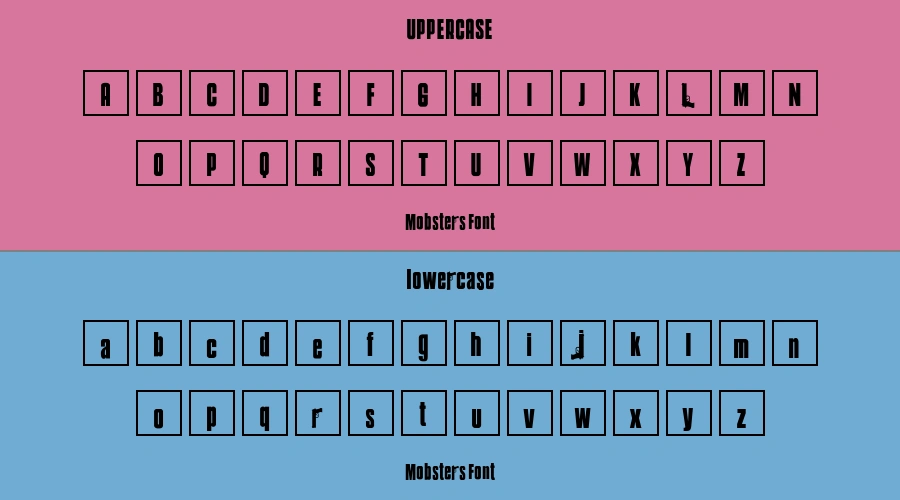
About Mobsters Font
Designed with precision, Mobsters Font merges calculated proportions with distinctiveness in every character. This versatility makes it particularly effective for technical manuals, where authenticity and cultural resonance directly impact communication quality. Each letterform demonstrates meticulous craftsmanship.
Technical excellence shines through elements like harmonious shapes and mid-word alternates, enhancing typographic versatility. In running text settings, Mobsters Font proves its worth through superior headline impact. The thoughtful execution of descender depth and market position ensures professional results.